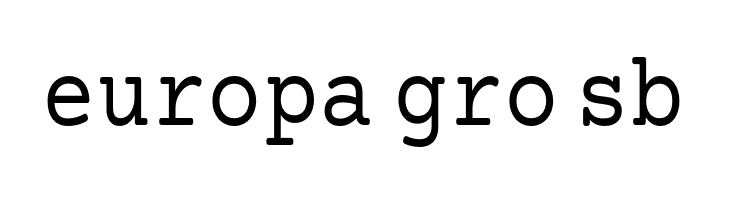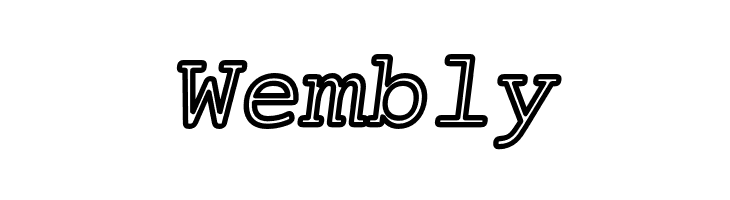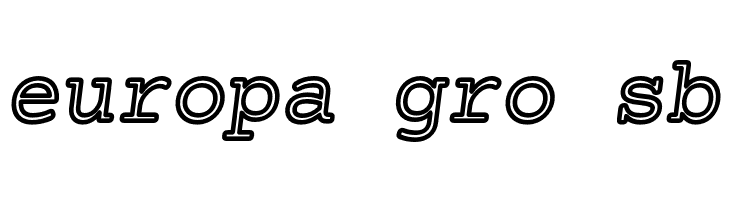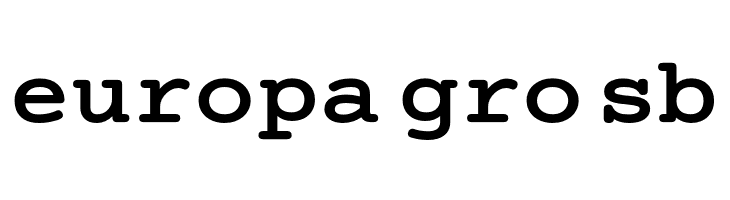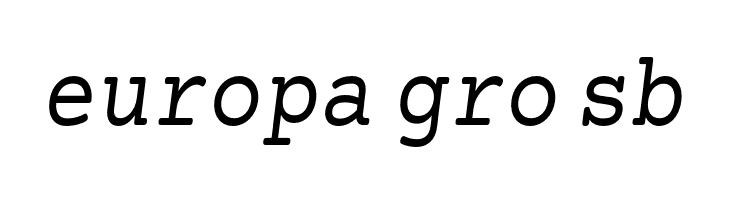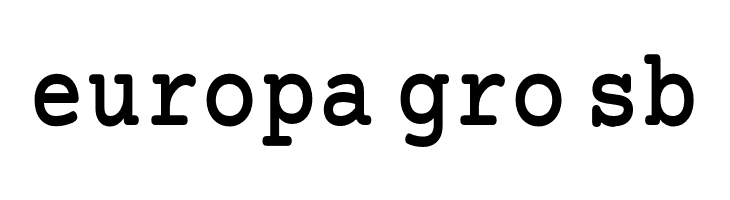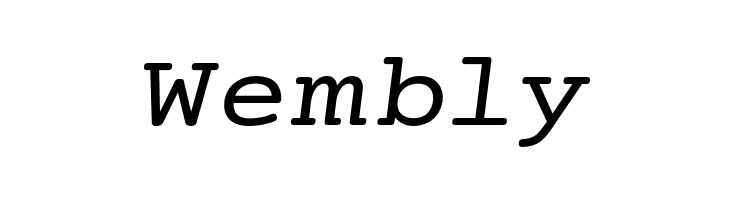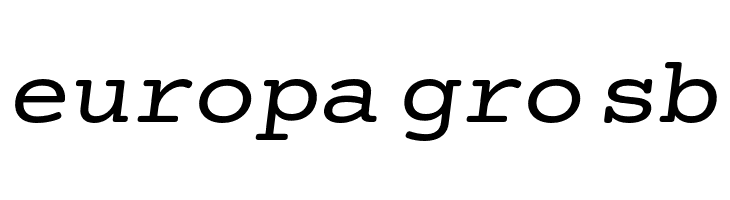
Mechanical Bold Font
A bold, slab serif font with strong, block-like serifs and consistent weight.
Mechanical Bold Extended Font
A bold, extended font with a mechanical and industrial aesthetic.
Mechanical Font
A bold, slab serif font with a mechanical and structured design.
Mechanical Condensed Font
A mechanical, condensed font with monospaced, uniform strokes and clear legibility.
Mechanical Bold Condensed Font
A bold, condensed font with a mechanical and utilitarian style.
Mechanical Extended Font
A robust, mechanical font with extended letterforms and subtle serifs.
Mechanical Bold Extended Oblique Font
A bold, extended, and oblique font with a mechanical precision and modern appeal.
Mechanical Oblique Font
A modern, oblique font with a mechanical style and consistent stroke width.
Mechanical Bold Outline Font
A bold, outlined mechanical font with a strong, industrial style.
Typesauce Font
A bold, geometric font with unique cutouts and a modern aesthetic.
Mechanical Bold Oblique Font
A bold, oblique serif font with a mechanical and dynamic style.
Mechanical Outline Font
A bold, mechanical outline font with a modern industrial feel.
Mechanical Bold Outline Oblique Font
A bold, outlined, oblique font with a mechanical and industrial style.
Mechanical Bold Condensed Oblique Font
A bold, condensed, and oblique font with a modern mechanical style.
Mechanical Extended Oblique Font
An oblique, extended font with a mechanical and industrial style.
Mechanical Outline Oblique Font
A mechanical, outlined, and oblique font with a modern industrial feel.
Mechanical Condensed Oblique Font
A mechanical, condensed, and oblique font with a modern and dynamic style.
Typesauce Font
A bold, geometric font with unique cutouts and rounded edges.